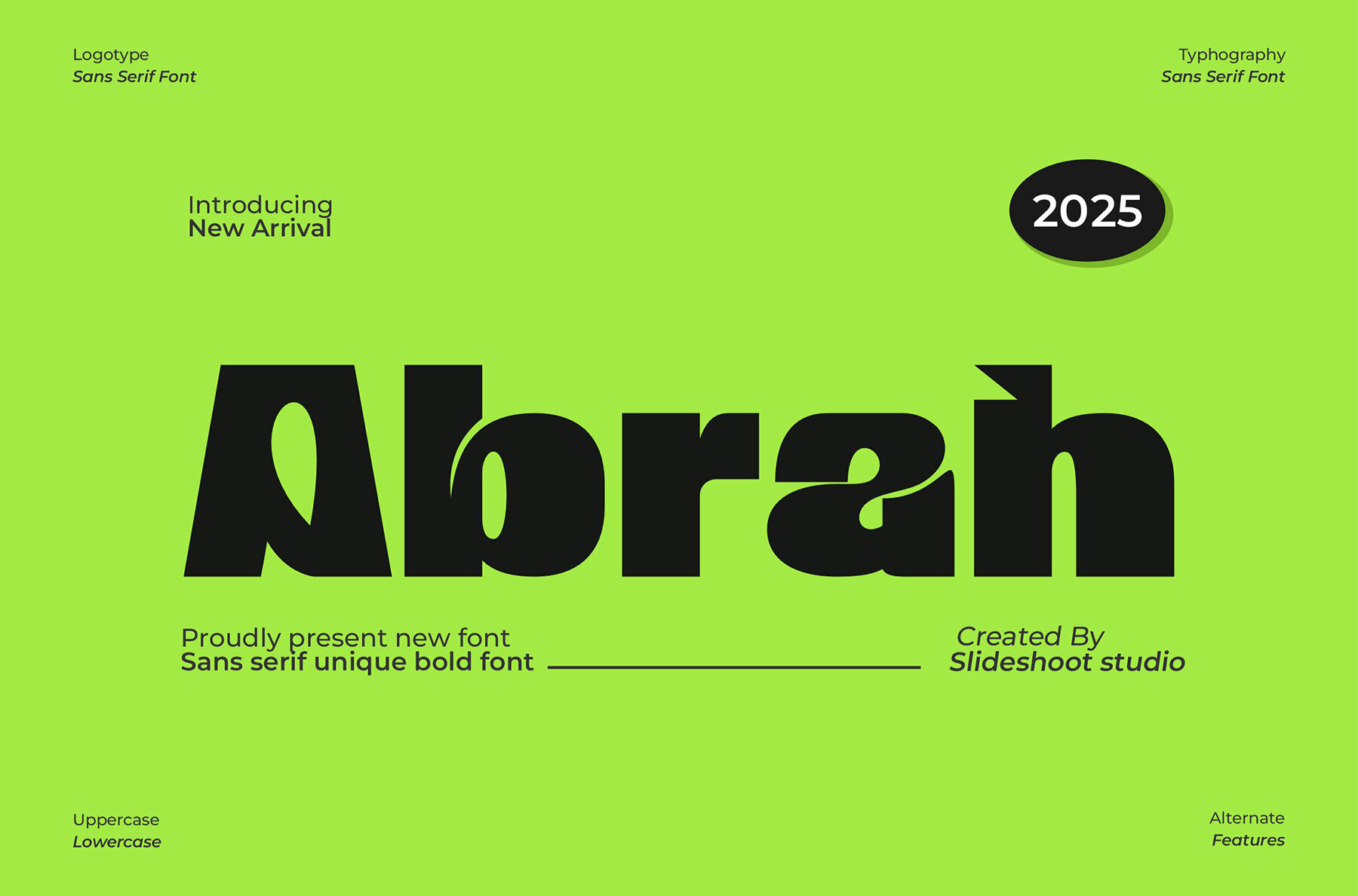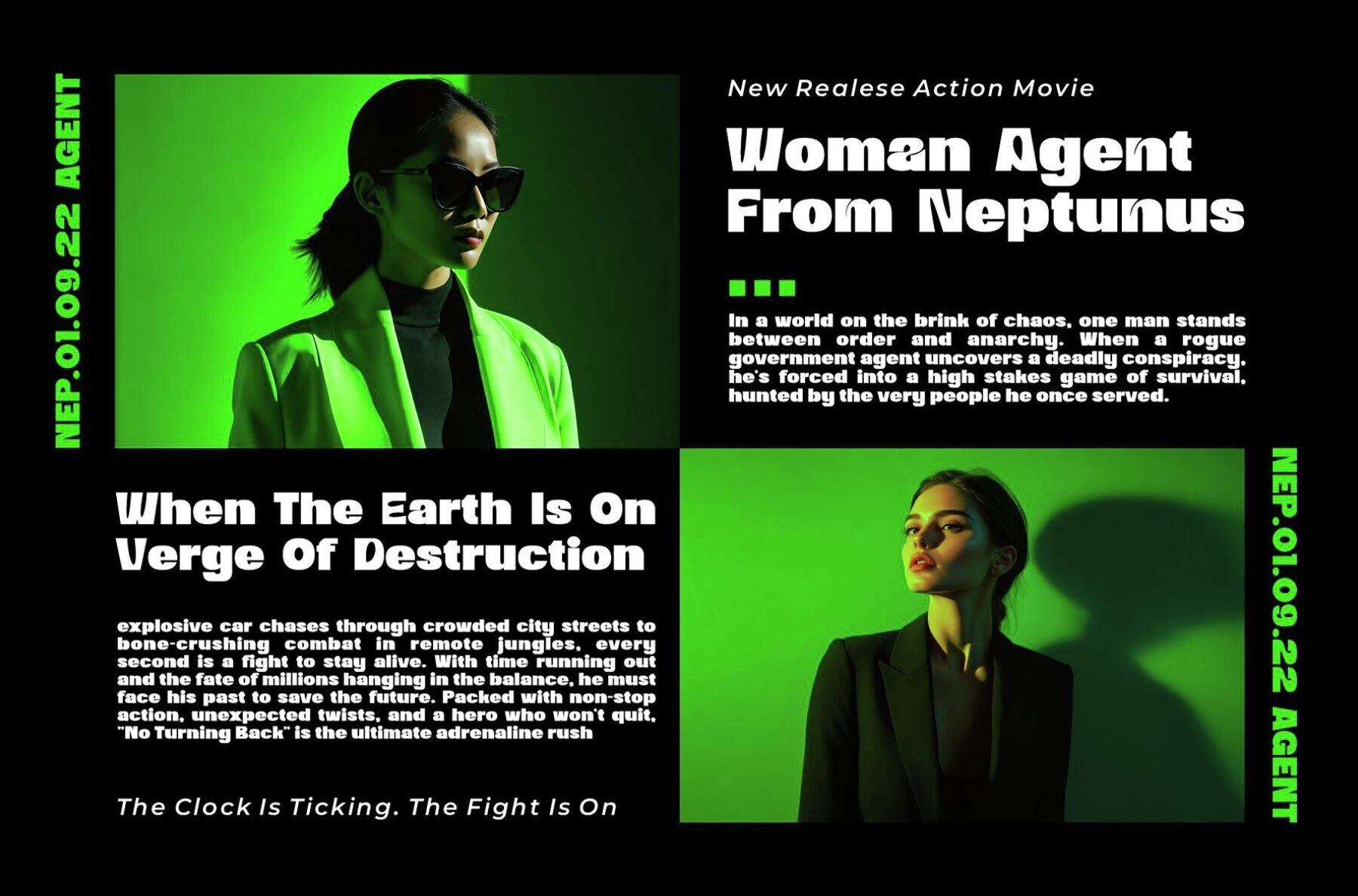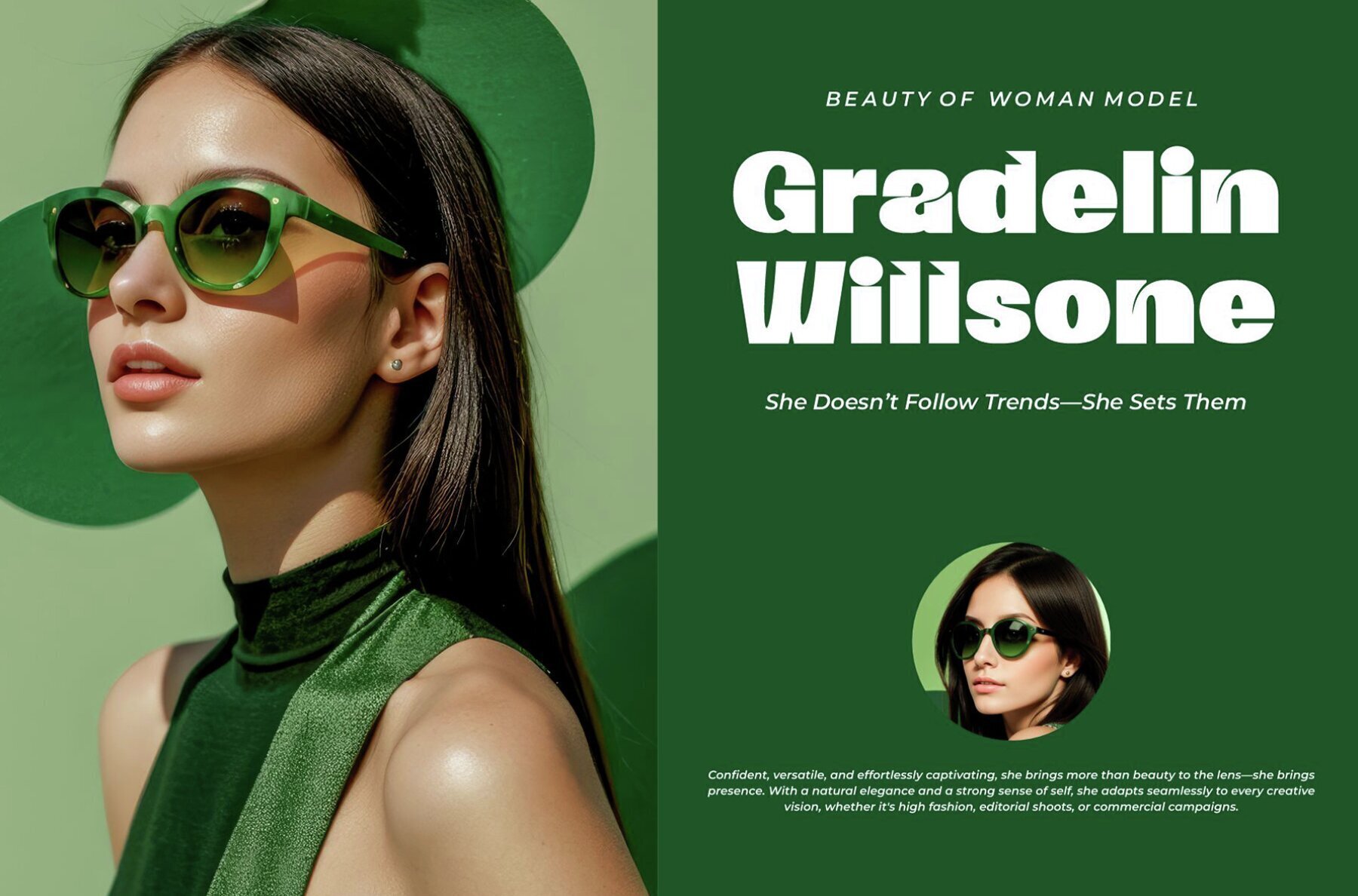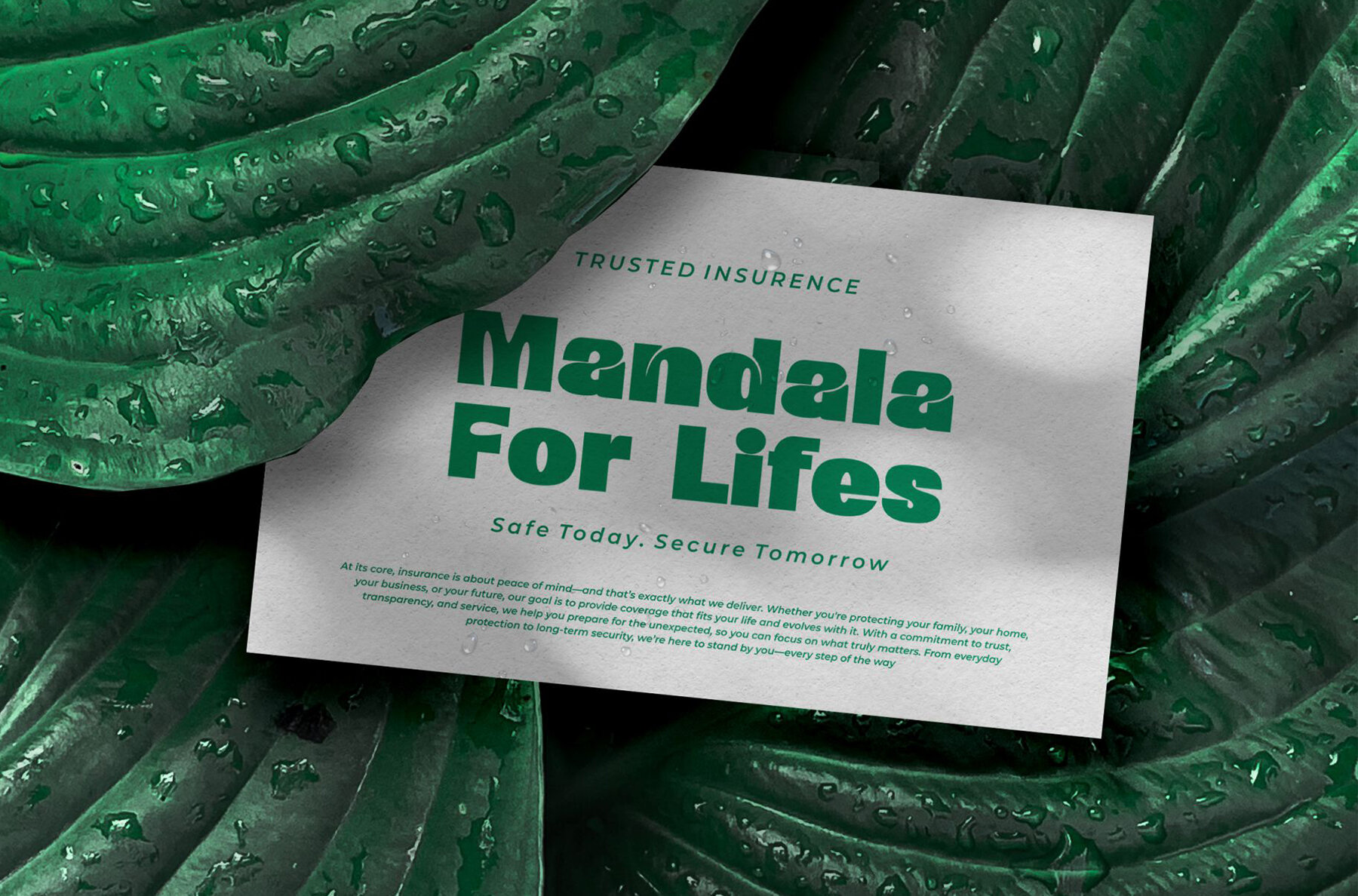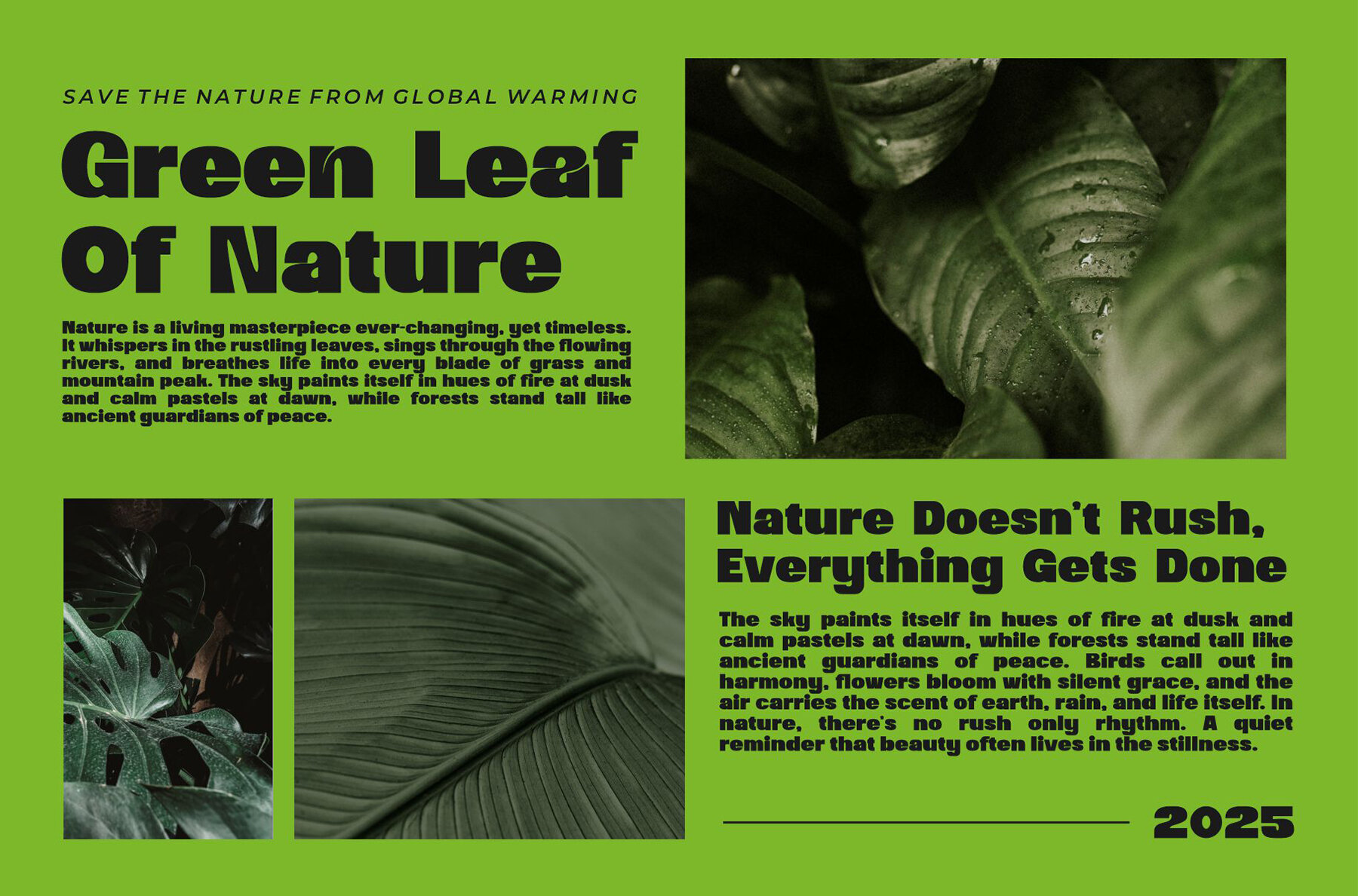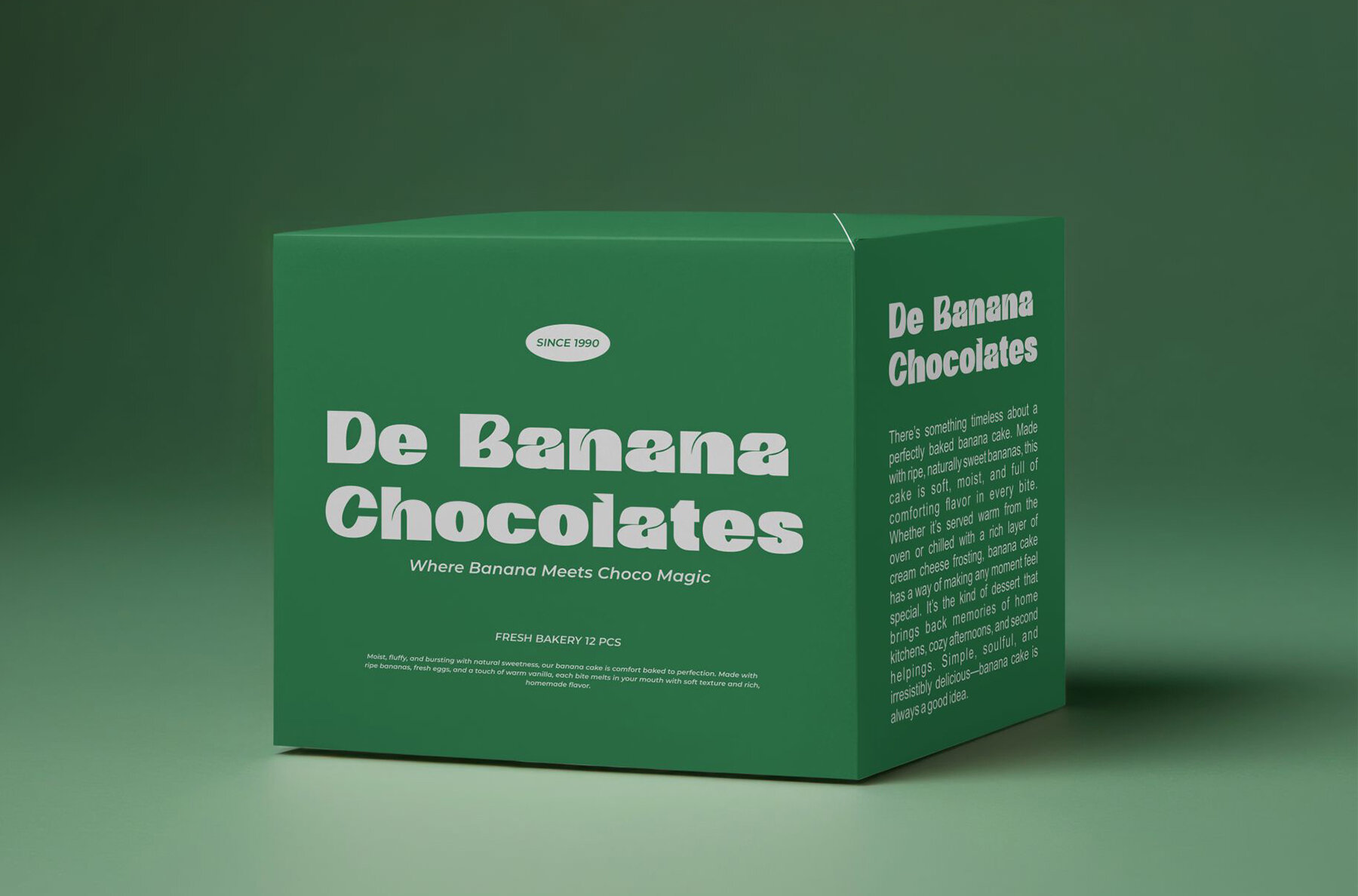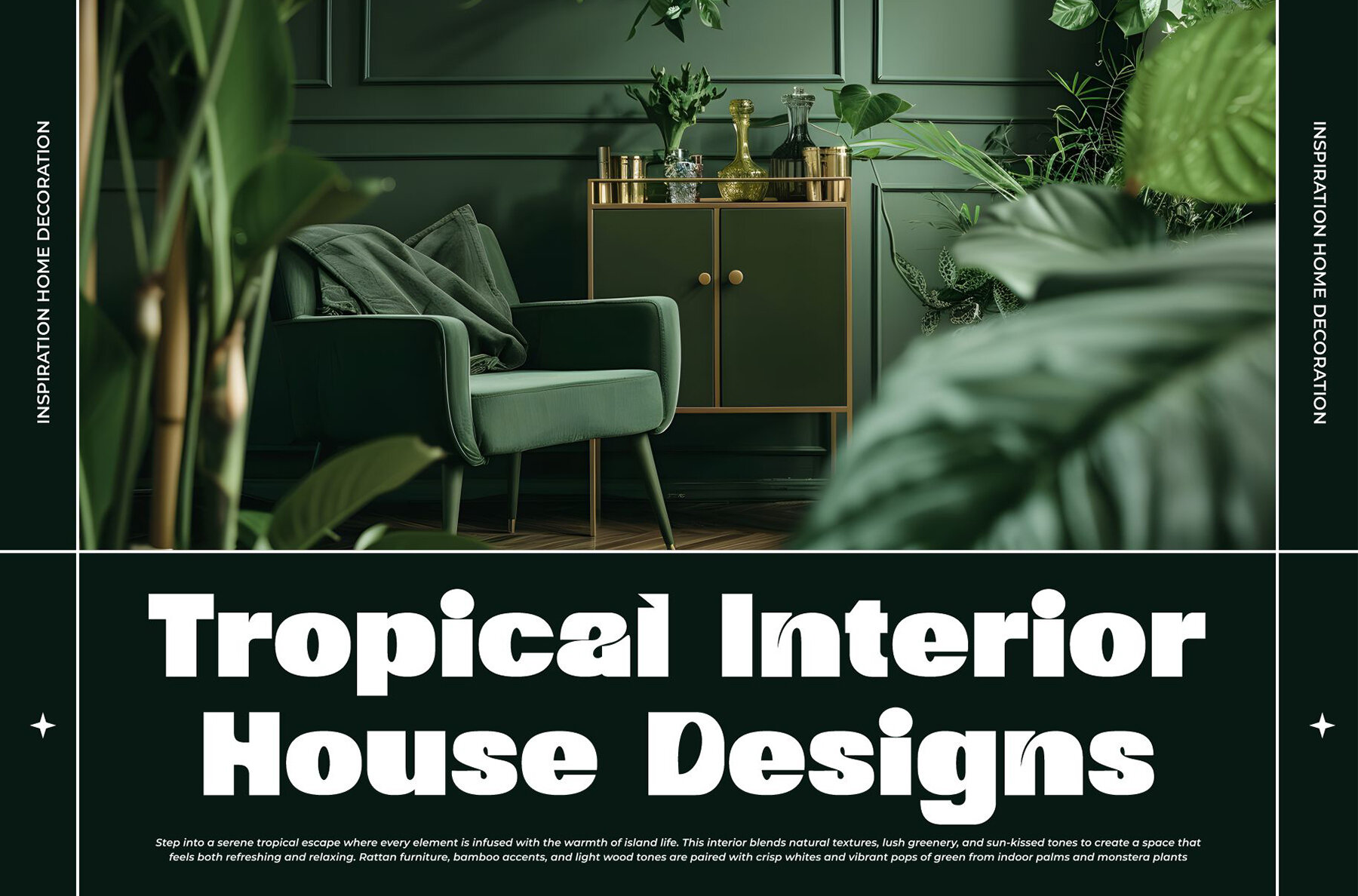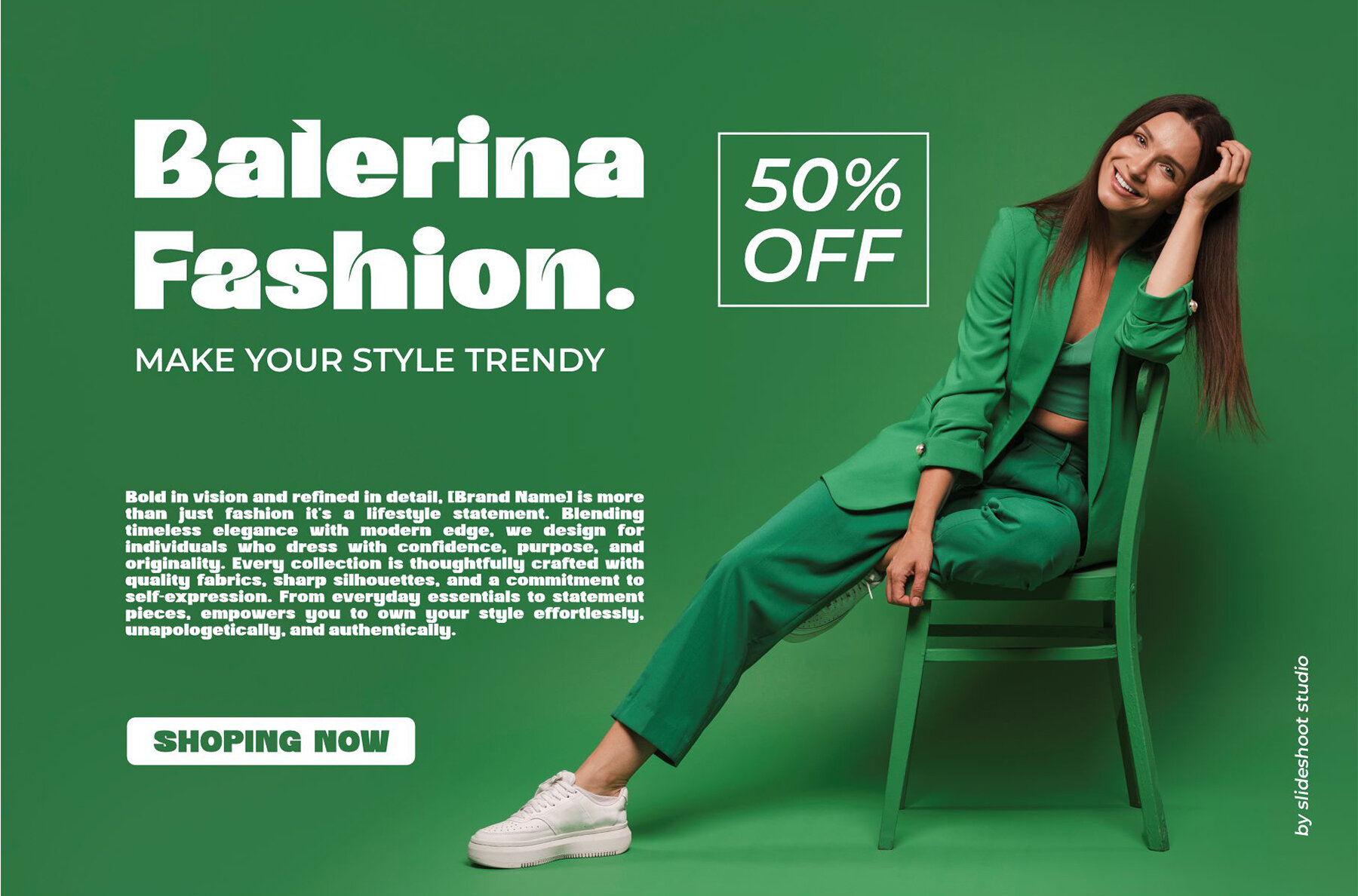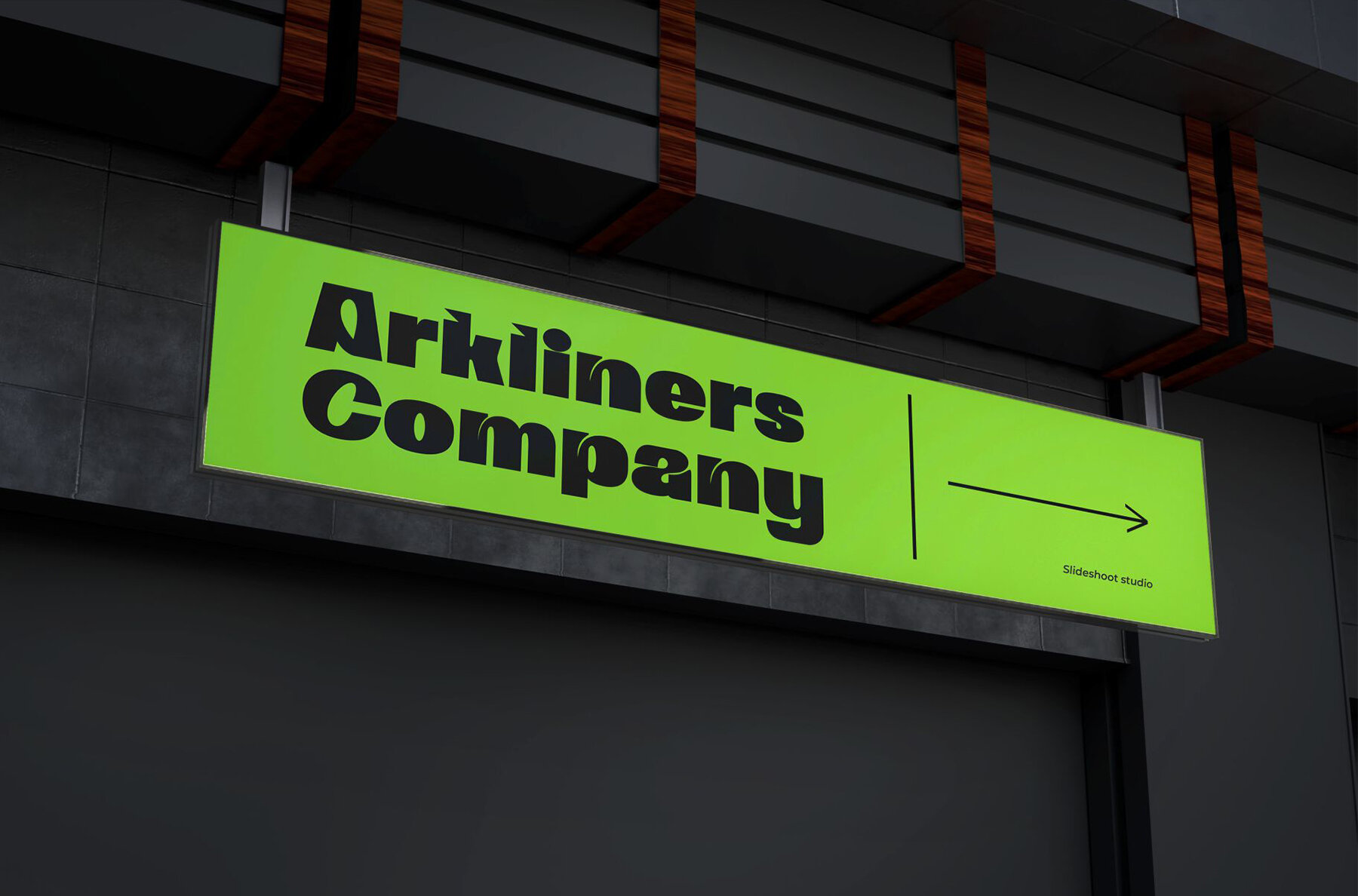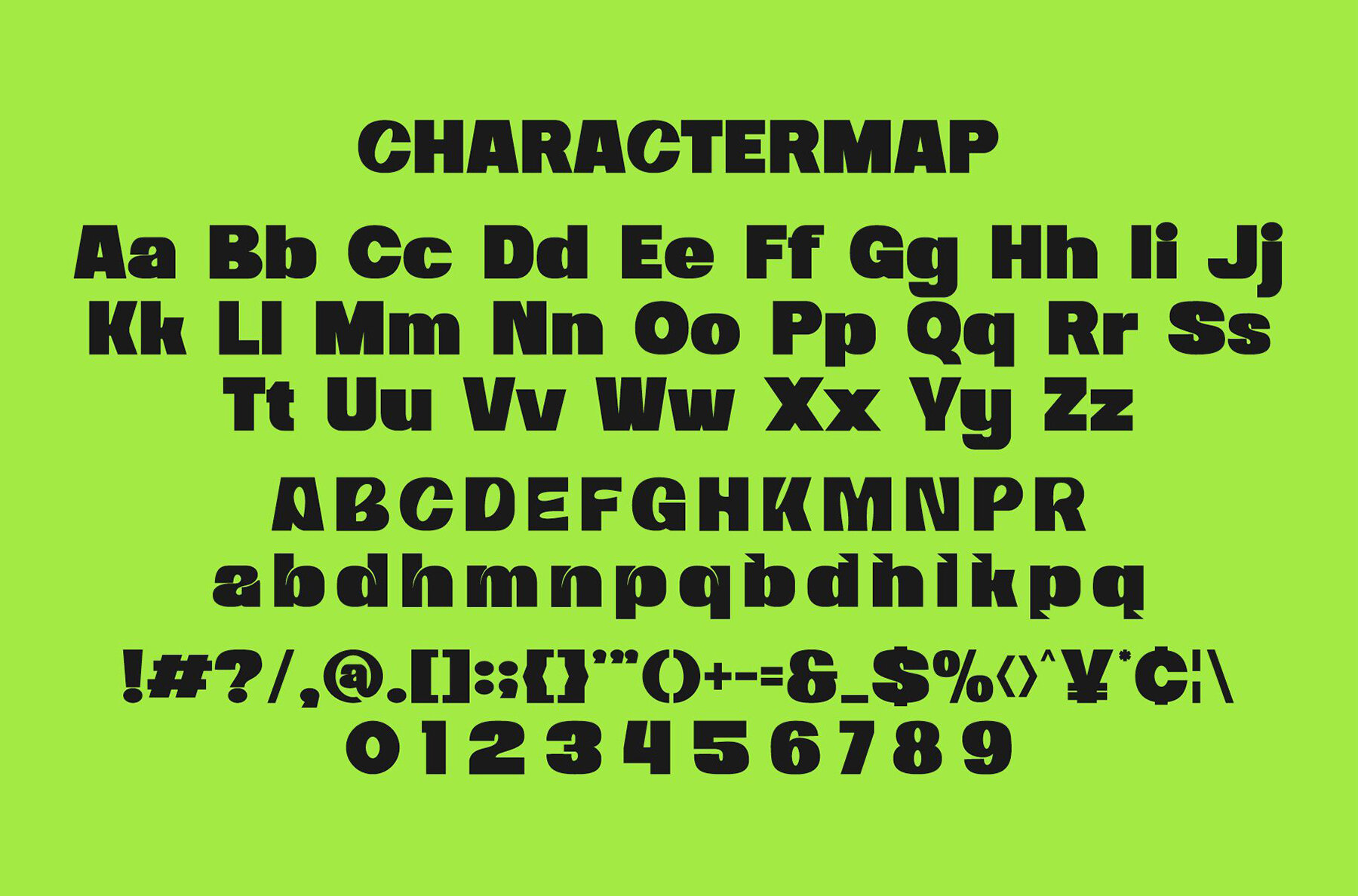
Abrah
Step into a world of creative design with Abrah, a bold and modern sans serif font that marries trendiness with charm. Its bouncy and playful nature is complemented by a unique wood theme, making it a versatile choice for a variety of projects. Whether you're crafting an invitation card, designing a company logo, or titling a movie, Abrah adds a touch of personality to your creations.Abrah by Slide Font